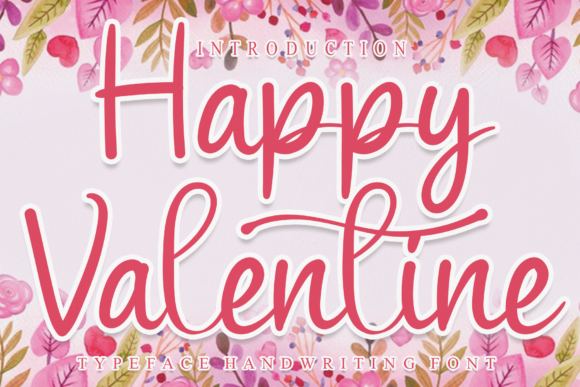
Happy Valentine Font
Happy Valentine is a stylish and incredibly elegant script font that exudes beauty, charm, and sophistication. With its graceful and flowing letterforms, this font is a perfect choice for adding a touch of romance and personalization to your designs.
When used on wedding invitations, Happy Valentine brings a sense of enchantment and elegance, setting the tone for a special and memorable event. The delicate strokes and intricate details of each letter create a captivating and romantic atmosphere, capturing the essence of love and celebration.
Thank you cards adorned with Happy Valentine convey a heartfelt message with style and grace. The script font adds a personal touch, making your appreciation and gratitude stand out in a truly elegant manner. Whether it’s a simple note or a heartfelt sentiment, Happy Valentine enhances the sentiment and makes it even more special.
Quotes and greeting cards designed with Happy Valentine instantly become eye-catching and captivating. The flowing and sophisticated letterforms draw attention and make each word stand out. Whether you’re sharing inspiring words or sending warm wishes, Happy Valentine elevates the message and adds a touch of charm and elegance.
Logos and business cards created with Happy Valentine are sure to leave a lasting impression. The script font adds a unique and memorable element to your brand identity, capturing attention and conveying a sense of sophistication and refinement. It’s a perfect choice for businesses and professionals looking to create a distinctive and elegant visual representation.
Happy Valentine’s versatility extends beyond specific design categories. Its handwritten touch adds warmth and personalization to any design that requires a touch of elegance. Whether it’s packaging, social media graphics, posters, or any other creative project, Happy Valentine will enhance the overall aesthetic and create a visually captivating result.
In conclusion, Happy Valentine is a stylish and incredibly elegant script font that adds a touch of romance, sophistication, and personalization to your designs. Its flowing and graceful letterforms make it a perfect choice for wedding invitations, thank you cards, quotes, greeting cards, logos, business cards, and more. Embrace the beauty of Happy Valentine and let it transform your designs into captivating and memorable creations.